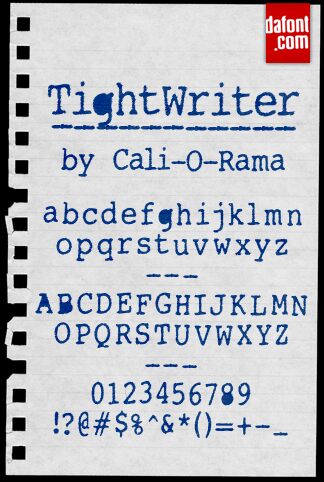
TightWriter by Florian Mihr of Adobe Systems Incorporated is a free eroded display font with blunt, irregular letters. Broad strokes shift abruptly between thick and thin, and the edges look scraped and broken. Uneven contours give the lettering a rough, hand-cut silhouette.
Torn-ink texture links the font to collage and photocopied artwork, fitting music packaging and event posters. On apparel, skate graphics, and horror-themed entertainment, the letters can become part of the printed texture rather than serving as neutral type.